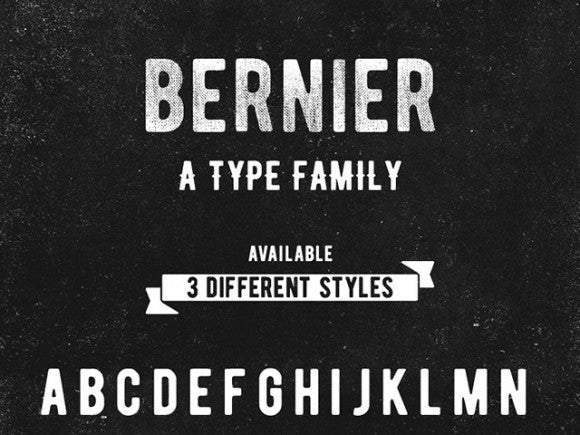
Free Bernier font
Today we're glad to feature this free bernier font. Download this font from the original source of The Hungry JPEG. You can create a professional designs with this fancy font.